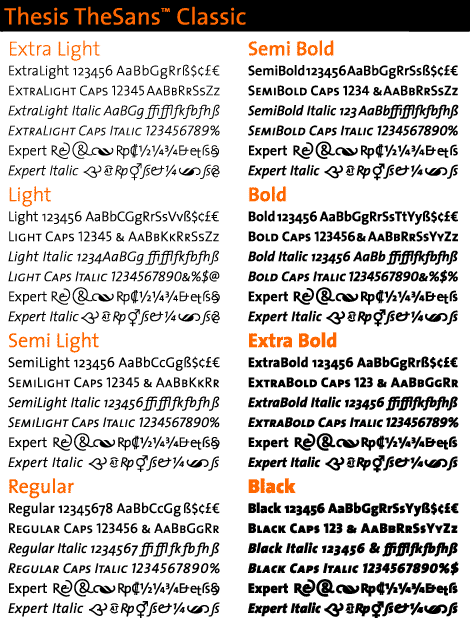
Thesis TheSans Classic (48 typefaces) (LucasFonts)
Thesis TheSans Classic (48 typefaces) font from LucasFonts
Lucas de Groot, known professionally as Luc(as) de Groot (born 21 June 1963 in Noordwijkerhout, the Netherlands) is a Dutch type designer. He is the head of the type foundry Fontfabrik.
He is mostly known for the very large font family Thesis (TheSans, TheSerif, TheMix, TheSansMono and later TheAntiqua) and Corpid (previously AgroSans).
Luc de Groot also designed custom fonts such as Calibri and Consolas for Microsoft Windows Vista, for magazines and newspapers like Der Spiegel with "SpiegelSans", die tageszeitung with "Taz", Folha de S. Paulo with "FolhaSerif", or corporations like Sun Microsystems with "SunSans".
Lucas de Groot teaches at the Design Faculty of the University of Applied Sciences, Potsdam, Germany.
Thesis is a "superfamily" including both serif and sans serif styles. First published in 1994 as part of the FontFont collection, Thesis became part of the LucasFonts type library in 2000. The family was conceived as a versatile typographic system of ambitious scope. It grew out of a dissatisfaction with the limited range of good typefaces available for corporate identity projects. Thesis aims to fill that gap by providing the user with three compatible styles - TheSans, TheMix and TheSerif - in an optically harmonious range of eight weights, including real italics for each weight. Thesis pioneered the concept of the all-purpose type system or superfamily which has since become such an important tool for the discerning typographer. The Thesis family has been expanded over the years. TheSans and TheMix are now available in three widths: Normal, Condensed and SemiCondensed.
Lucas deGroot